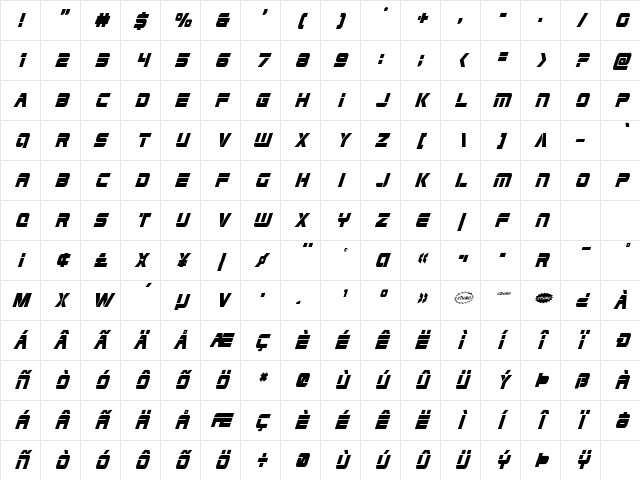
Edge Racer Condensed Super-Italic Condensed Italic Free Font
Edge Racer Condensed Super-Italic Condensed Italic
Style: Condensed Italic
Design Context for Edge Racer Condensed Super-Italic
Edge Racer Condensed Super-Italic is a composed and adaptable typeface that performs quietly and consistently across a wide range of design contexts. The slanted form adds forward momentum and visual energy. Its narrow stance lets it pack a punch even in space-constrained designs.
Pro Tip: Use Edge Racer Condensed Super-Italic for emphasis, pull quotes, and subheadings where its slanted energy can add rhythm to the layout.